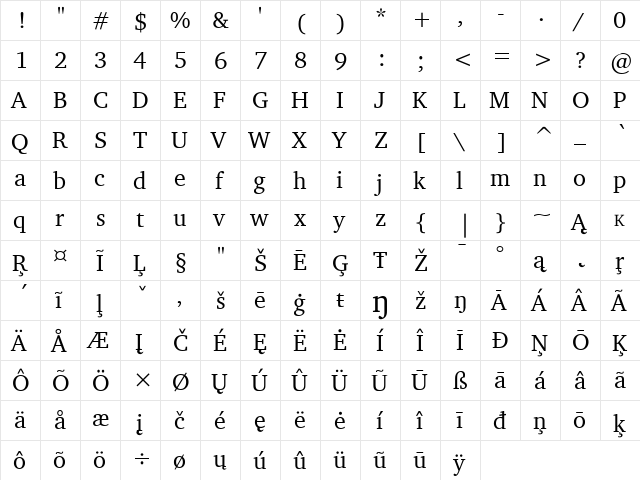
LeedsBit EuroNorth Normal
Design Context for LeedsBit EuroNorth Typeface
LeedsBit EuroNorth takes a measured approach to typography — its balanced proportions and neutral character make it a reliable workhorse for both digital and print work.